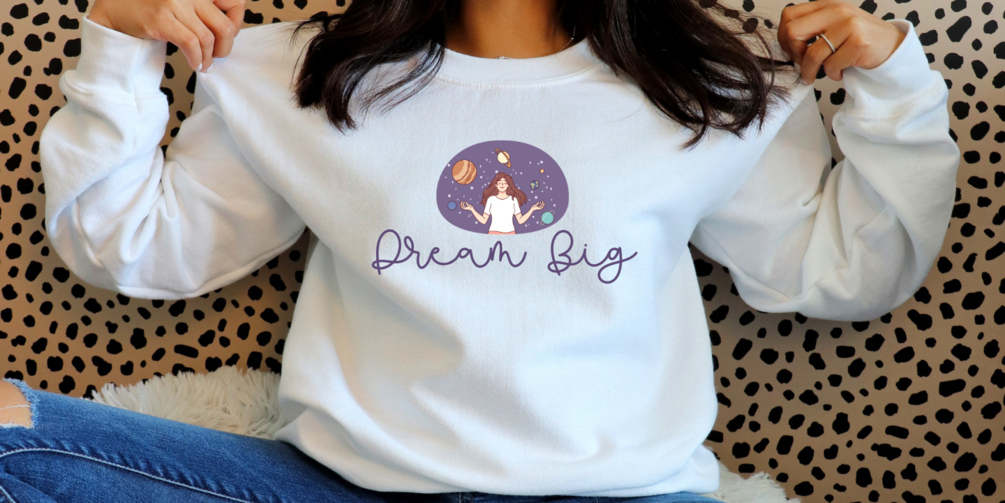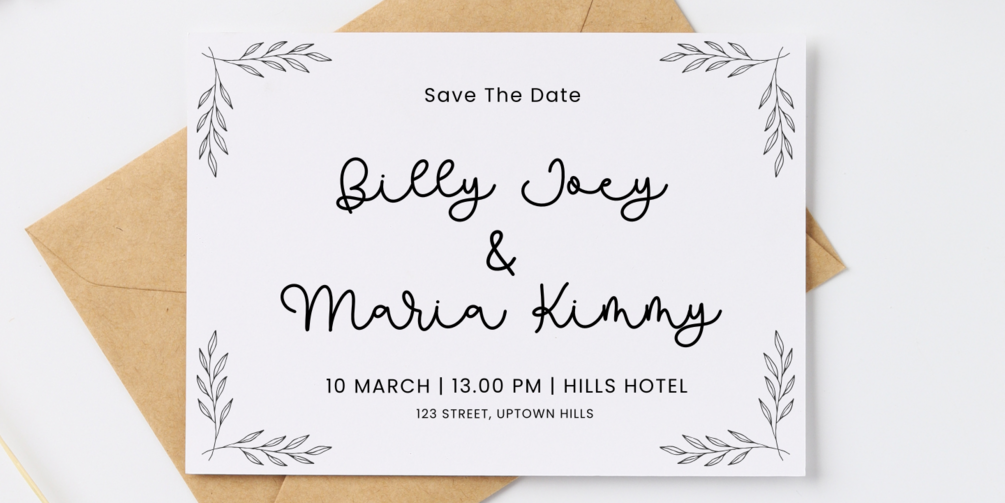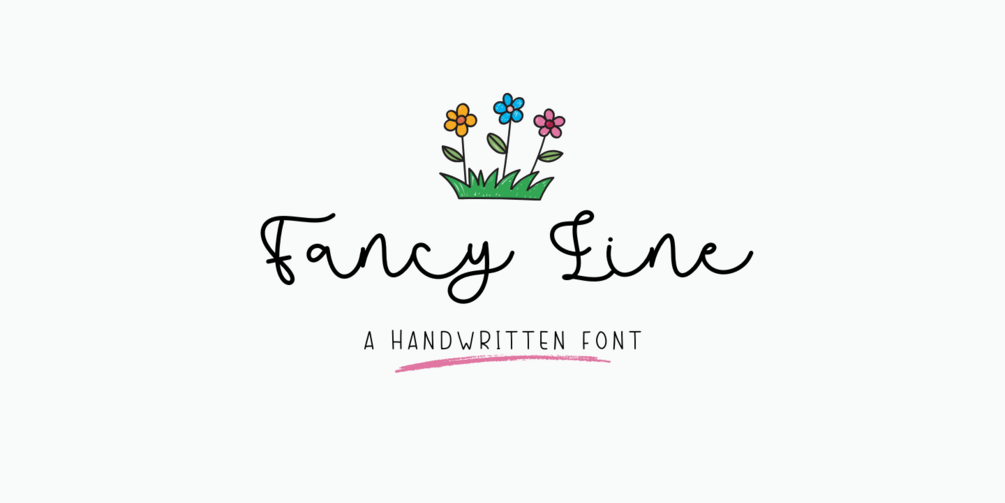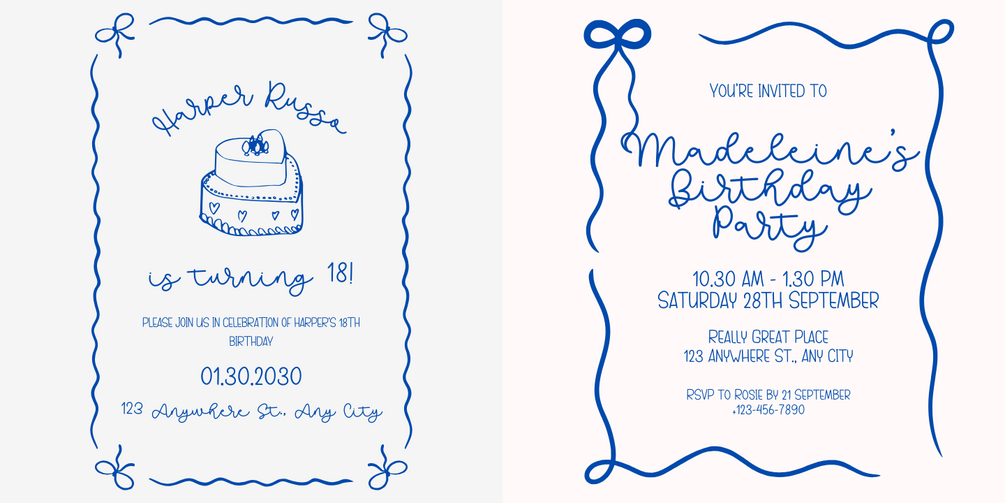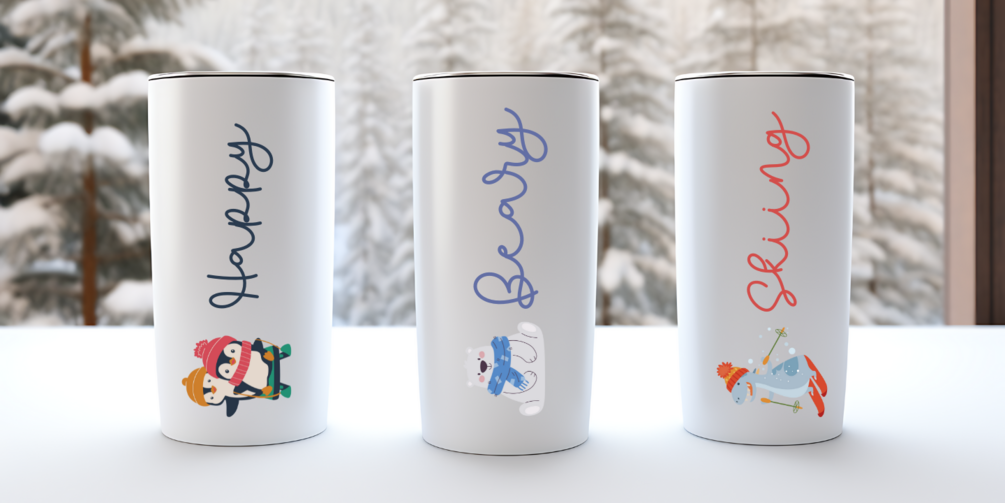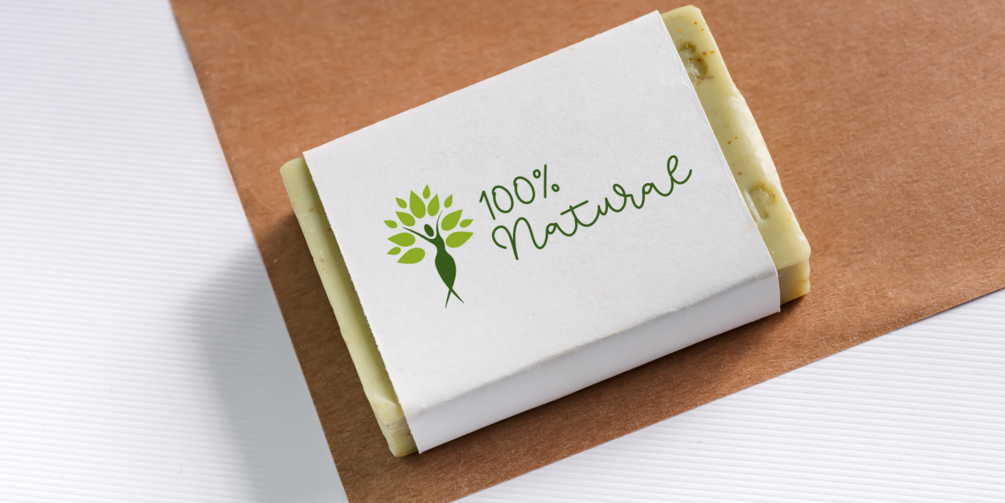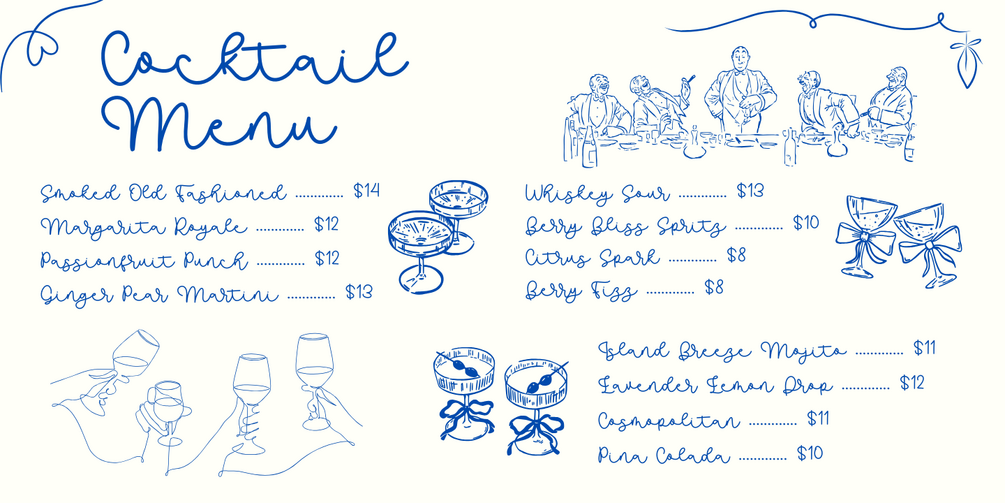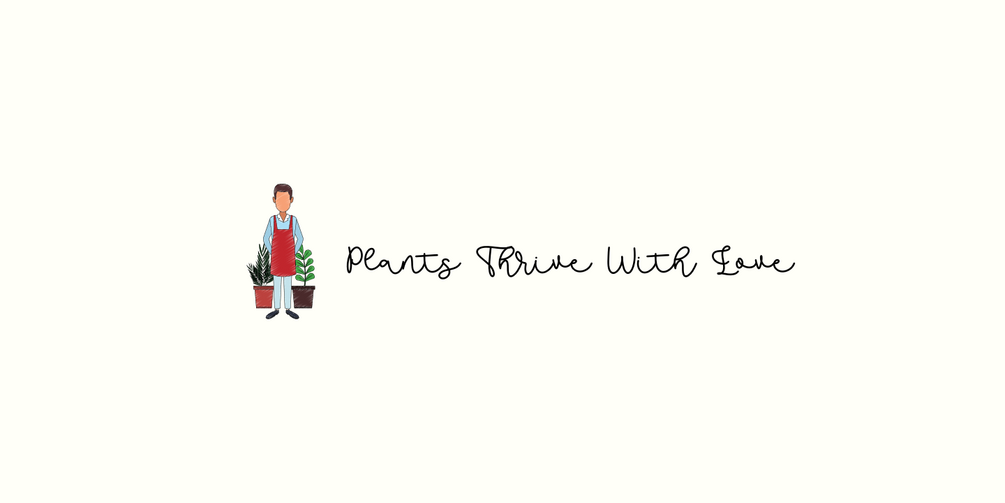
Fancy Line – Elegant Handwritten Monoline Font for Logos & Branding
Fancy Line is a modern elegant monoline font handcrafted to add a touch of sophistication to your projects. Inspired by classic penmanship, each letter is designed with flowing curves and natural balance, making it perfect for logo design, wedding invitations, branding, and more.
• Elegant business cards
• Fashion brand logos
• Product packaging
• Social media headers